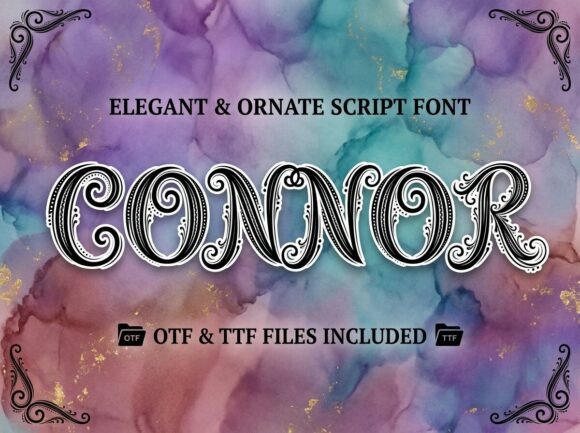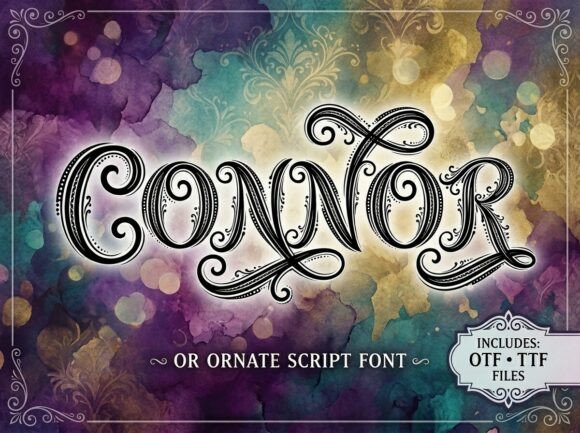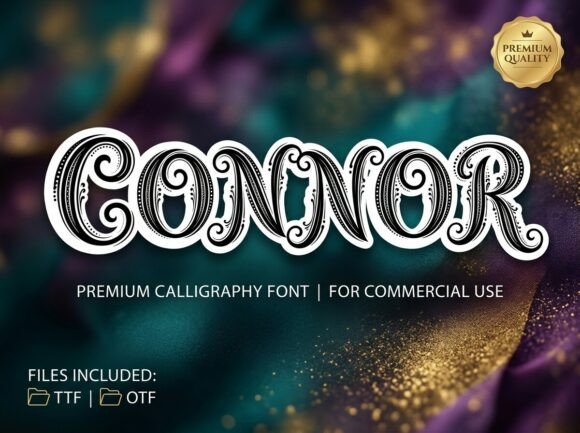
Introducing Connor Font: The Ultimate Decorative Display Font
Are you tired of using the same old fonts for your designs? Look no further than Connor Font, a stunning decorative display font that’s sure to turn heads. With its unique artistic elements and strong visual personality, this font is perfect for creators who want to break away from the ordinary and make a statement.
What Makes Connor Font Special?
Connor Font is a versatile font that’s designed to be the center of attention. Its bold and eye-catching design makes it perfect for a variety of applications, including bold headlines, artistic logos, and creative packaging. Whether you’re a designer, craftsperson, or DIY enthusiast, this font is sure to elevate your work to the next level.
Key Features of Connor Font
- Unique Artistic Elements: Connor Font features unique artistic elements that set it apart from other fonts. Each letter is carefully crafted to make a statement and add a touch of elegance to your designs.
- Strong Visual Personality: This font has a strong visual personality that’s sure to grab attention. Its bold and eye-catching design makes it perfect for headlines, logos, and other applications where you want to make a statement.
- Versatile: Connor Font is versatile enough for a variety of applications, including bold headlines, artistic logos, and creative packaging.
- Professional and Polished Finish: Despite its bold and artistic design, Connor Font maintains a professional and polished finish that’s perfect for high-end designs.
IMPORTANT NOTE BEFORE PURCHASE: This font is an ALL-CAPS (Uppercase Only) display typeface. It does not include lowercase letters. It is specifically designed for high-impact headlines, logos, and decorative initials where every letter is a work of art.
Who is Connor Font For?
Connor Font is perfect for:
- Designers: If you’re a designer looking for a unique and eye-catching font to add to your collection, Connor Font is a great choice.
- Crafters: If you’re a crafter or DIY enthusiast looking for a font to use for your handmade projects, Connor Font is a great option.
- Business Owners: If you’re a business owner looking for a font to use for your branding or marketing materials, Connor Font is a great choice.
- Use it for Headlines: Connor Font is perfect for headlines and titles. Use it to add a touch of elegance and sophistication to your designs.
- Use it for Logos: Connor Font is also great for logos and branding. Use it to create a unique and memorable logo for your business.
- Use it for Packaging: Connor Font can also be used for packaging and labeling. Use it to add a touch of elegance and sophistication to your products.
In conclusion, Connor Font is a stunning decorative display font that’s perfect for creators who want to break away from the ordinary. With its unique artistic elements and strong visual personality, this font is sure to elevate your designs to the next level. Whether you’re a designer, craftsperson, or DIY enthusiast, Connor Font is a great choice.